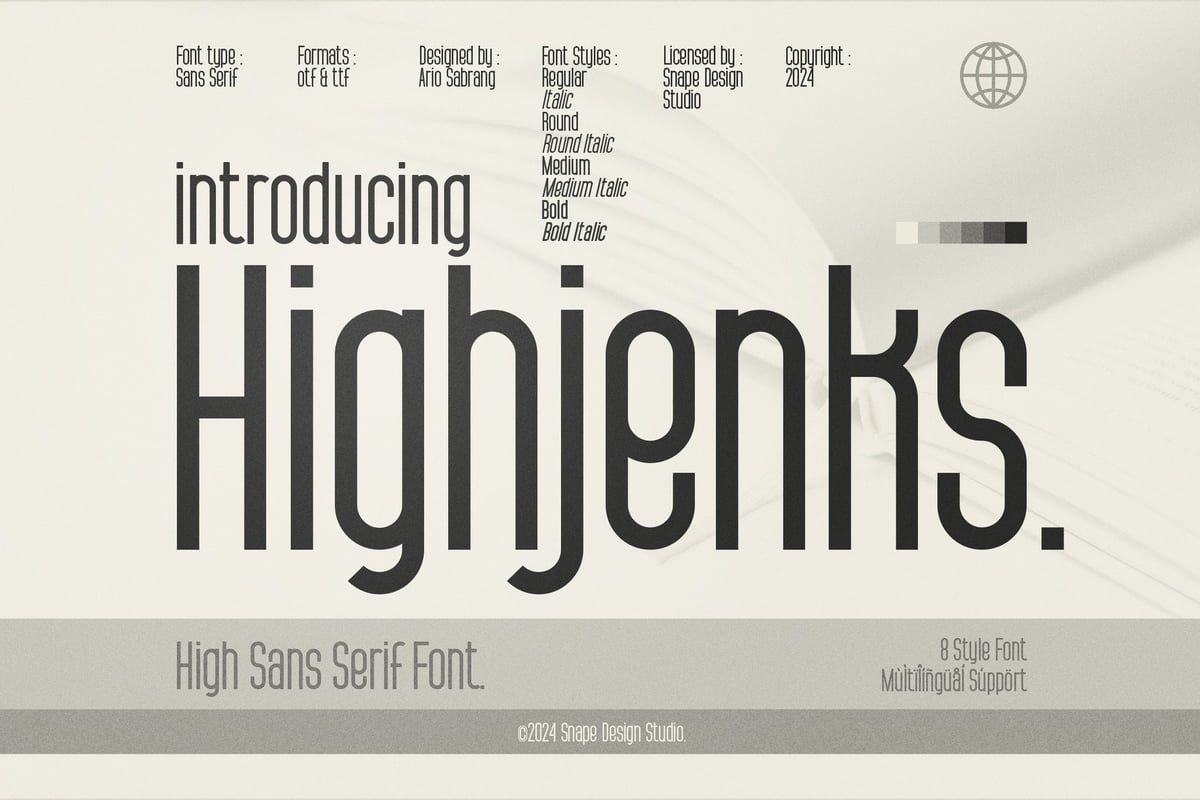
Highjenks - High Sans Serif Font
Highjenks delivers modern sophistication with its sleek sans serif design and razor-sharp confidence. This contemporary typeface features clean lines and sharp angles that command attention in headlines and branding projects. Its versatile design adds instant sophistication and style to any creative work, making it perfect for designers seeking a modern edge. The font excels in various design contexts, offering both impact and readability across different applications. Features: Uppercase & ...